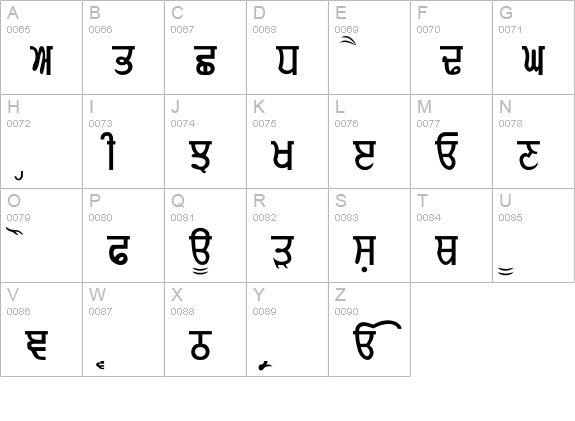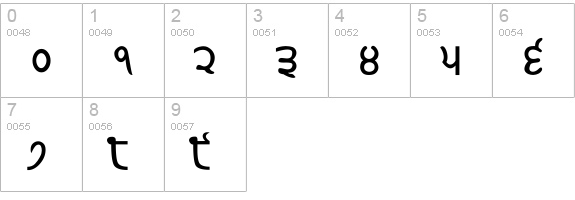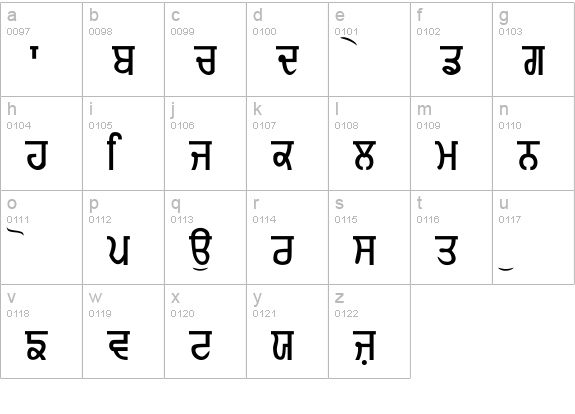
Gurmukhi-Normal Font Details
Gurmukhi-Normal is the standard, neutral variant in the Gurmukhi typeface family \xE2\x80\x94 well suited to general body text, paragraphs, and standard typographic work.
The Gurmukhi-Normal font is a beautifully crafted typeface that is perfect for showcasing the elegance of the Gurmukhi script. Its intricate lines and curves bring out the traditional beauty of the Punjabi language, making it a popular choice for various design projects. This font is not only visually appealing but also highly legible, making it suitable for a wide range of applications, from print materials to digital designs. Whether you are creating posters, invitations, websites, or any other project that requires a touch of sophistication, the Gurmukhi-Normal font is sure to impress. Moreover, the best part is that this font is completely free to download at FontsMarket.com, allowing you to enhance your creative projects without any cost. So why wait? Add the Gurmukhi-Normal font to your collection today and elevate your designs with its timeless charm and versatility.